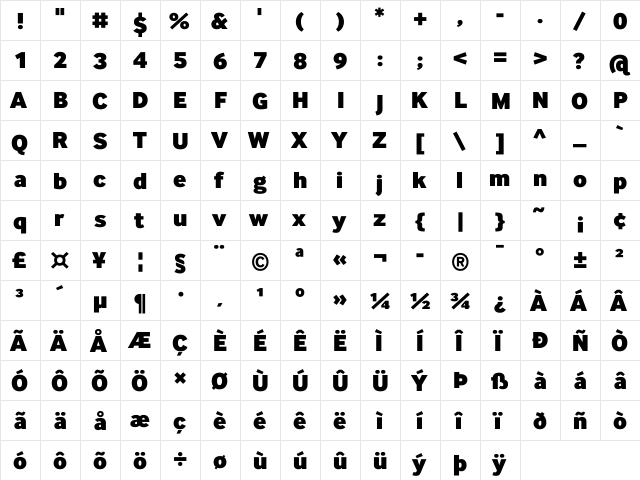
InterFace DaMa Th Bold Font Preview
InterFace DaMa Th Bold
InterFace DaMa Th Bold Font Details
Design Context for InterFace DaMa Th Typeface
InterFace DaMa Th takes a measured approach to typography — its balanced proportions and neutral character make it a reliable workhorse for both digital and print work. Its bold stroke weight gives it real presence on the page.
Pro Tip: Use InterFace DaMa Th in both headline and body roles to test its range before committing to a single application.